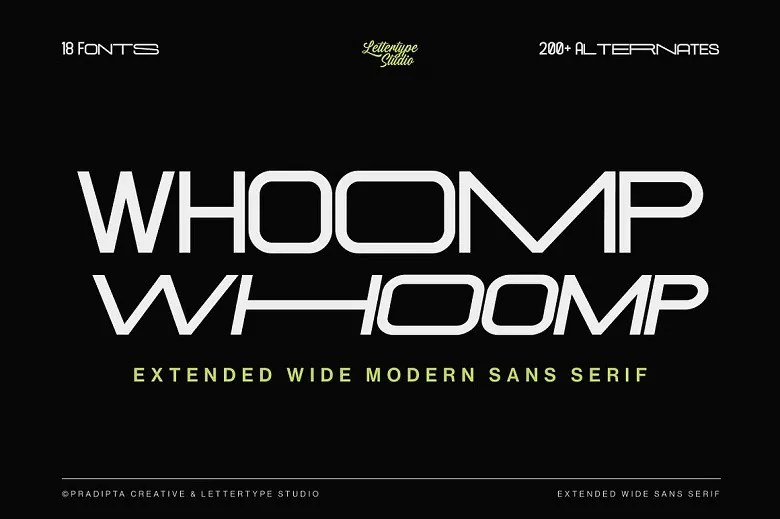
Whoomp Font
Whoomp is an extended wide modern sans-serif font that carries a distinct urban influence, reflected in its unique and individualistic letter forms. This bold typeface is designed to offer maximum versatility, featuring over a hundred glyphs that provide new levels of font adaptation and creative freedom.
Whoomp’s wide and extended design makes it an excellent choice for a variety of projects, including photography watermarks, social media content, advertisements, logos, branding, invitations, product labels, letterheads, wedding designs, packaging, subtitles, events, and more. Its contemporary style adds a fresh, dynamic edge to any design.